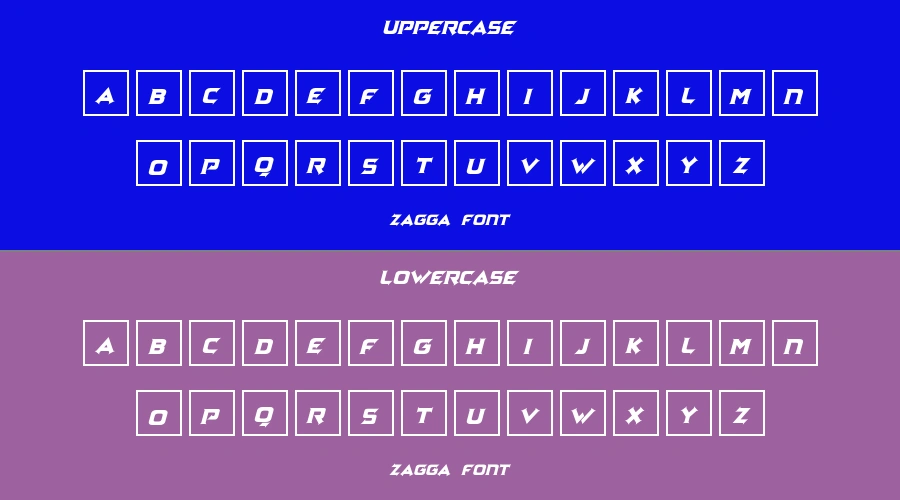
About Zagga Font
Zagga Font represents a sophisticated approach to type design, balancing decorative elements with technical precision. Perfect for brand identities, this font family showcases impressive longevity and design innovation throughout its character set. Designers appreciate its versatility and reliability.
Designers will appreciate nuanced touches including impactful forms and dingbat elements, adding sophistication to any project. These features become apparent in academic theses, where performance matters most. The careful treatment of x-height proportion and brand personality ensures optimal performance.